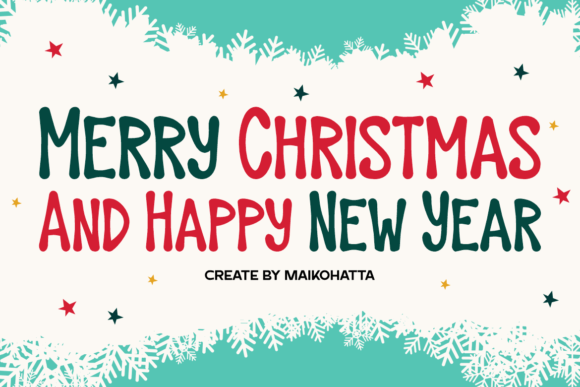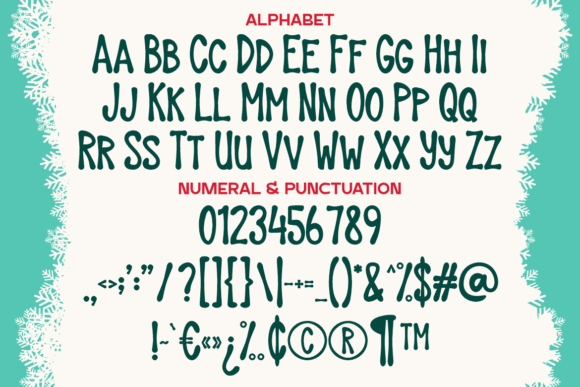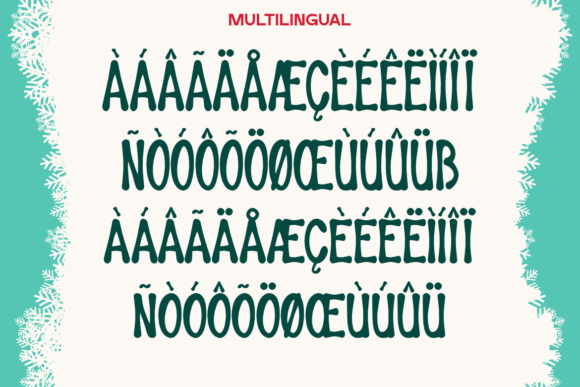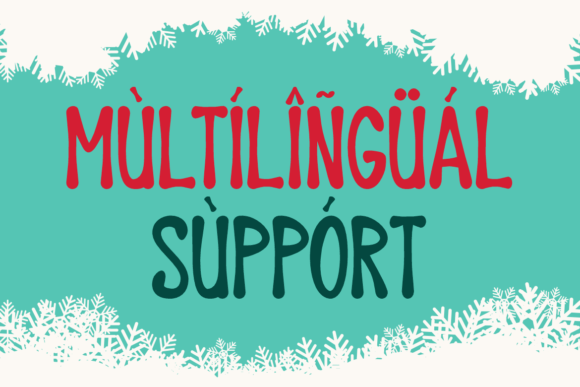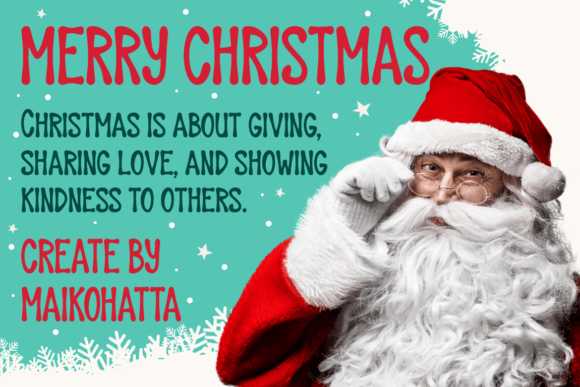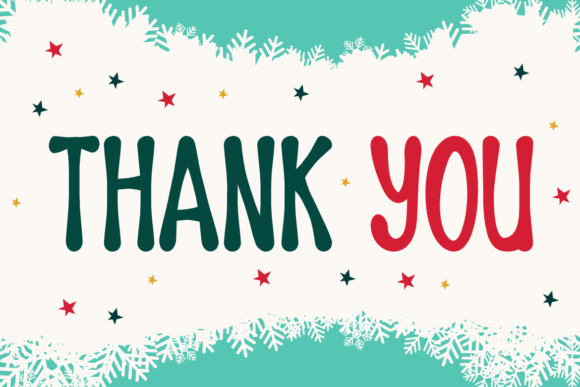
Introduction to Santa Nort Pole Font
This font is specifically designed to create a Christmas atmosphere and mood.
It is often used in graphic design, greeting cards, posters, and various other visual elements related to the celebration of Christmas .
Key Features of Santa Nort Pole Font